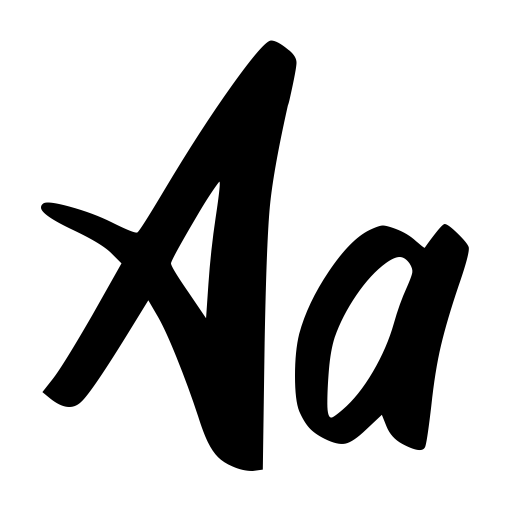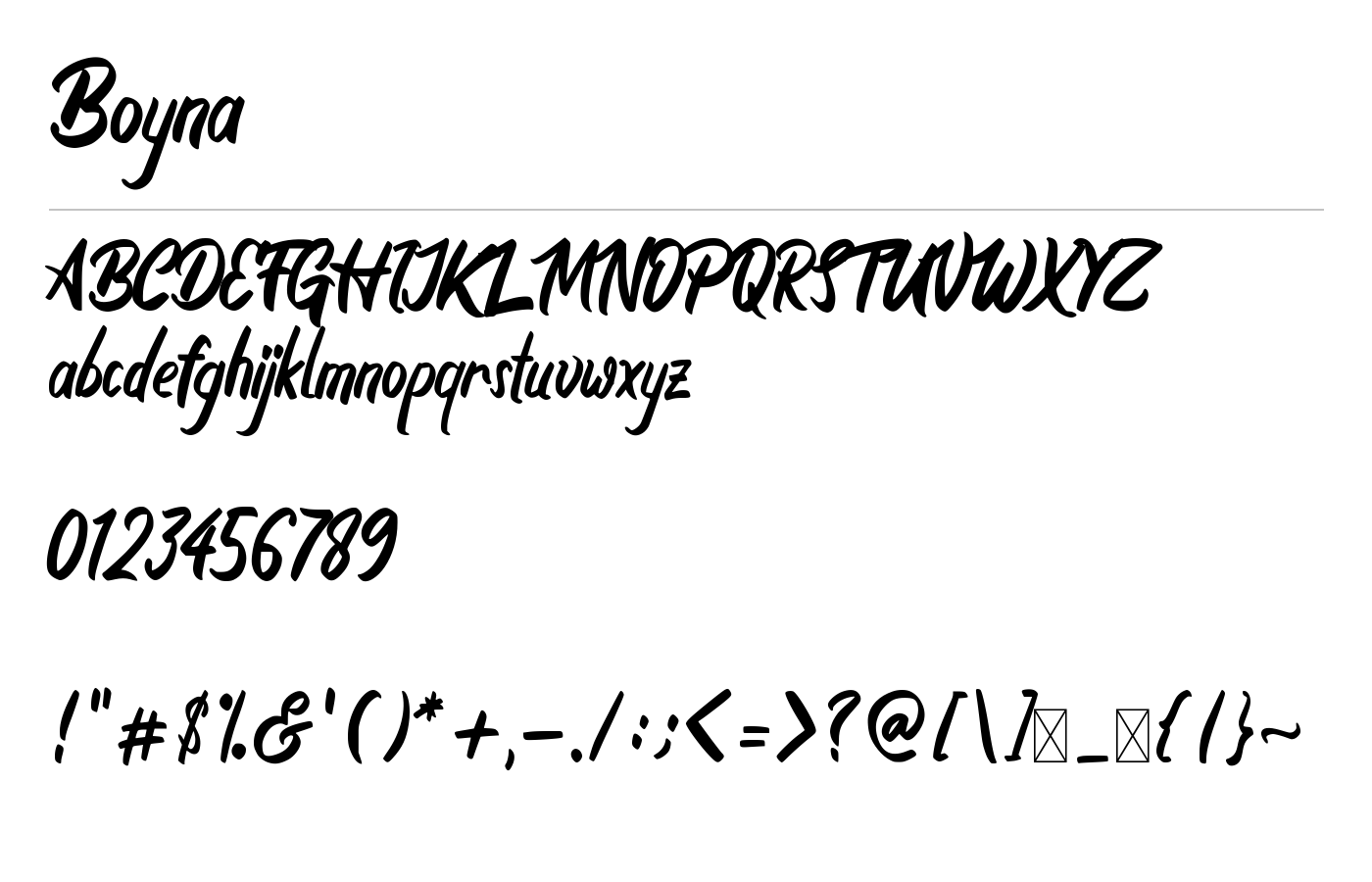
Boyna is a lively and modern script font with a handwritten feel, featuring bold, slightly condensed letterforms and smooth, flowing strokes. Its dynamic style and casual elegance make it perfect for creative branding, headlines, and packaging where a personal, energetic touch is desired. This font works well in projects that aim to communicate approachability and flair without sacrificing readability.
Boyna Font
About Boyna Font
| Font family | Boyna Font |